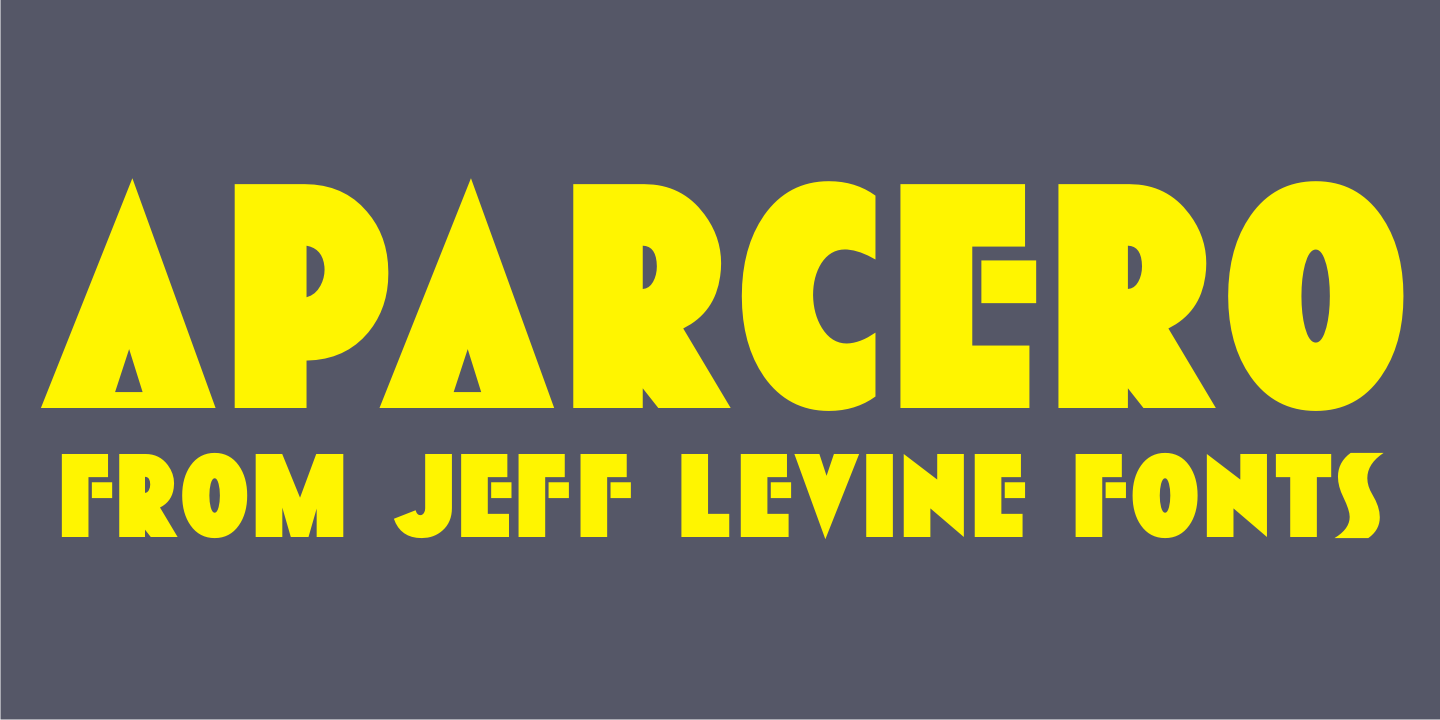
The Aparcero JNL Font is perfect for agricultural branding, farm signage, organic food packaging, country-style restaurant menus, rural business logos, farming equipment graphics, harvest festival posters, agricultural event materials, and rustic outdoor advertising.
What makes the Aparcero JNL Font so exciting is its authentic agricultural heritage that perfectly captures the hardworking spirit and traditional values of farming communities. This distinctive typeface embodies the honest craftsmanship and down-to-earth character that resonates with rural audiences and urban consumers seeking genuine, farm-fresh experiences. The font's robust construction and rustic charm communicate reliability, tradition, and connection to the land that modern agricultural businesses need to establish trust and authenticity.
The Aparcero JNL Font family includes Regular weight featuring complete uppercase and lowercase character sets, comprehensive numerical collections, essential punctuation marks, and agricultural-themed symbols that maintain the rural aesthetic throughout your farming and agricultural design projects.
Agricultural businesses and rural marketing professionals consistently choose Aparcero JNL Font Free Download for projects that require authentic countryside appeal and trustworthy communication. This exceptional typeface excels in environments where establishing credibility and connection to traditional farming values is essential for business success. The font's sturdy character helps communicate the dependability and quality that customers expect from agricultural products and services.
The distinctive features of Aparcero JNL Font reflect the proud heritage of American farming traditions when local agriculture was the backbone of community life. Each character demonstrates the practical, no-nonsense approach that characterized rural signage and advertising. The font's proportions and spacing create perfect balance between functionality and rustic charm that modern agricultural enterprises require.
Contemporary farming operations appreciate how Aparcero JNL Font communicates sustainability and artisanal quality. Whether designing labels for organic produce, creating signage for farmers' markets, or developing branding for agritourism ventures, this font delivers the genuine character that distinguishes quality agricultural businesses from industrial operations. The typeface works exceptionally well for companies emphasizing traditional farming methods and environmental stewardship.
The versatility of Aparcero JNL Font extends across multiple agricultural applications and rural marketing initiatives. Farm-to-table restaurants utilize its earthy character for menu design and promotional materials. Agricultural equipment dealers choose it to communicate their understanding of farming culture and customer needs. Rural tourism operators rely on its authentic appearance to attract visitors seeking genuine countryside experiences.
Digital agricultural platforms benefit from Aparcero JNL Font's optimized performance across various devices and screen resolutions. The font maintains its rustic character whether displayed on farm websites, mobile agricultural apps, or digital marketplace listings. This technical reliability ensures consistent brand presentation across all agricultural marketing channels.
The cultural significance of Aparcero JNL Font resonates with audiences who value traditional farming practices and sustainable agriculture. The typeface serves as a visual connection to agricultural heritage while helping modern farms communicate their commitment to quality, sustainability, and community values. This emotional connection helps agricultural businesses build lasting relationships with conscious consumers.
Agricultural historians and rural design specialists recognize Aparcero JNL Font as an authentic representation of farming typography traditions. The font preserves important agricultural design heritage while making it accessible to contemporary farmers and agricultural businesses who want to honor traditional values in their modern operations.